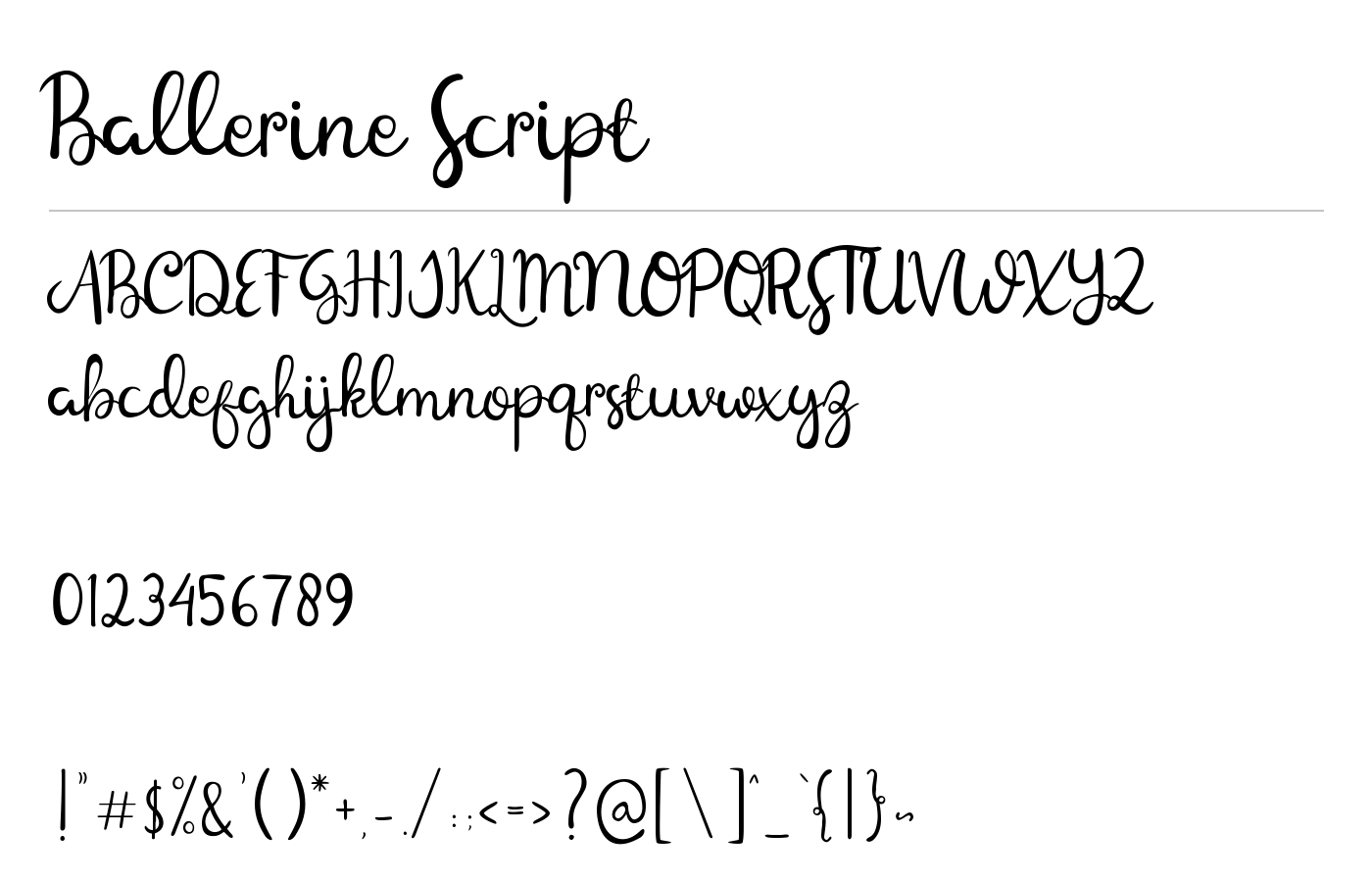
Ballerine Script is a delicate and charming handwritten font with a playful yet elegant feel, featuring slender, flowing strokes and smooth curves. Its consistent light weight and moderately tall x-height make it highly readable while maintaining a whimsical, graceful style perfect for invitations, branding, and feminine or artistic projects. This font adds a personal, lively touch to designs that seek warmth and sophistication.
Ballerine Script Font
About Ballerine Script Font
| Font family | Ballerine Script Font |
| Designer | Milla Febriana Tanjung |